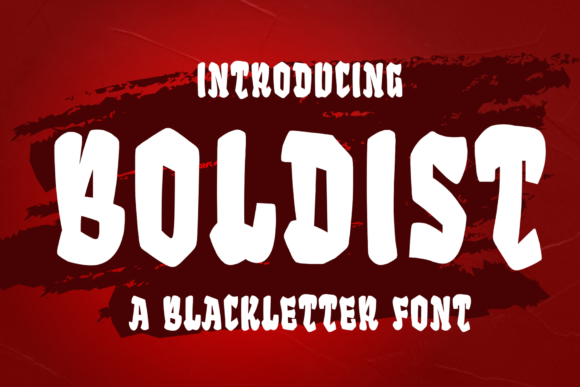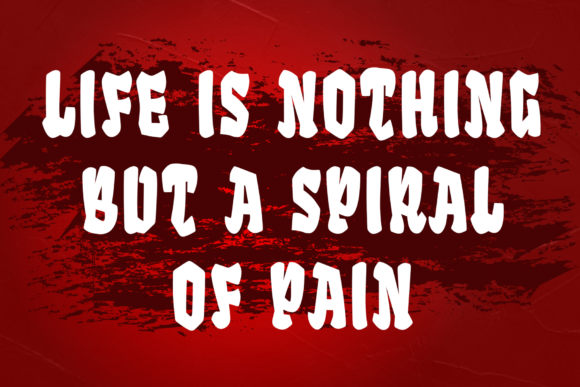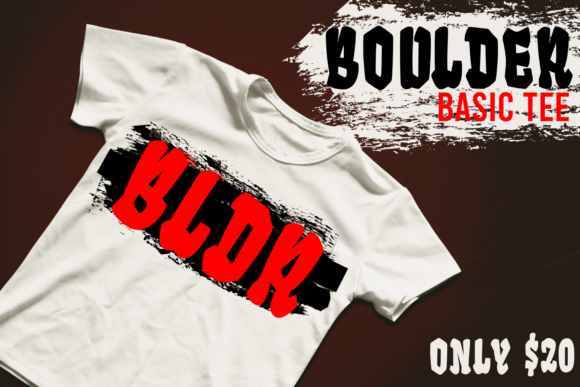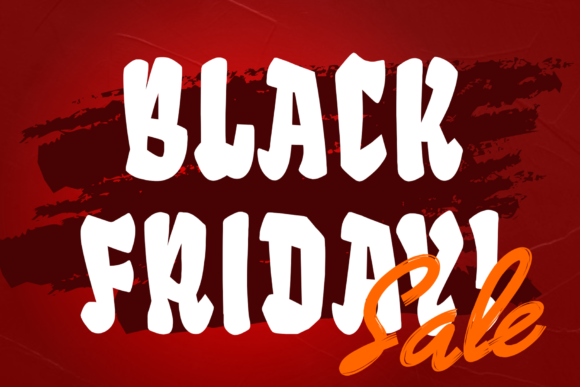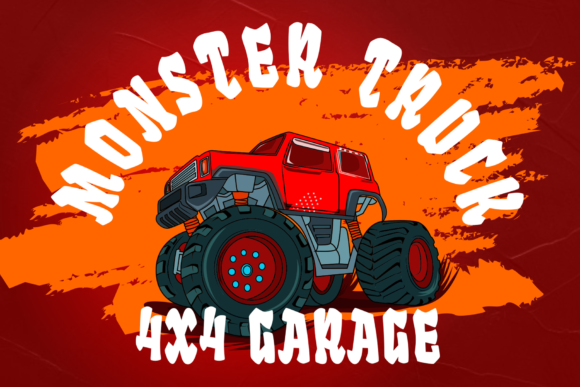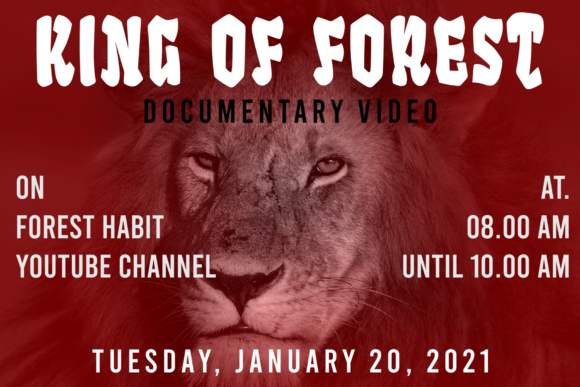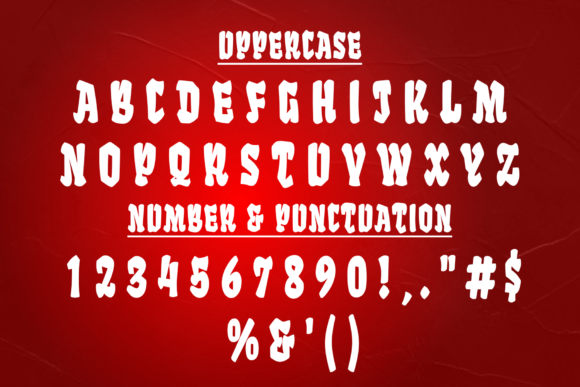
Boldist
About Boldist Font
Boldist is a thick lettered, cartoon like, authentic display font. It can be used for various purposes such as logos, headings, t-shirts, letterhead, signage, labels, news, posters, badges and so much more.